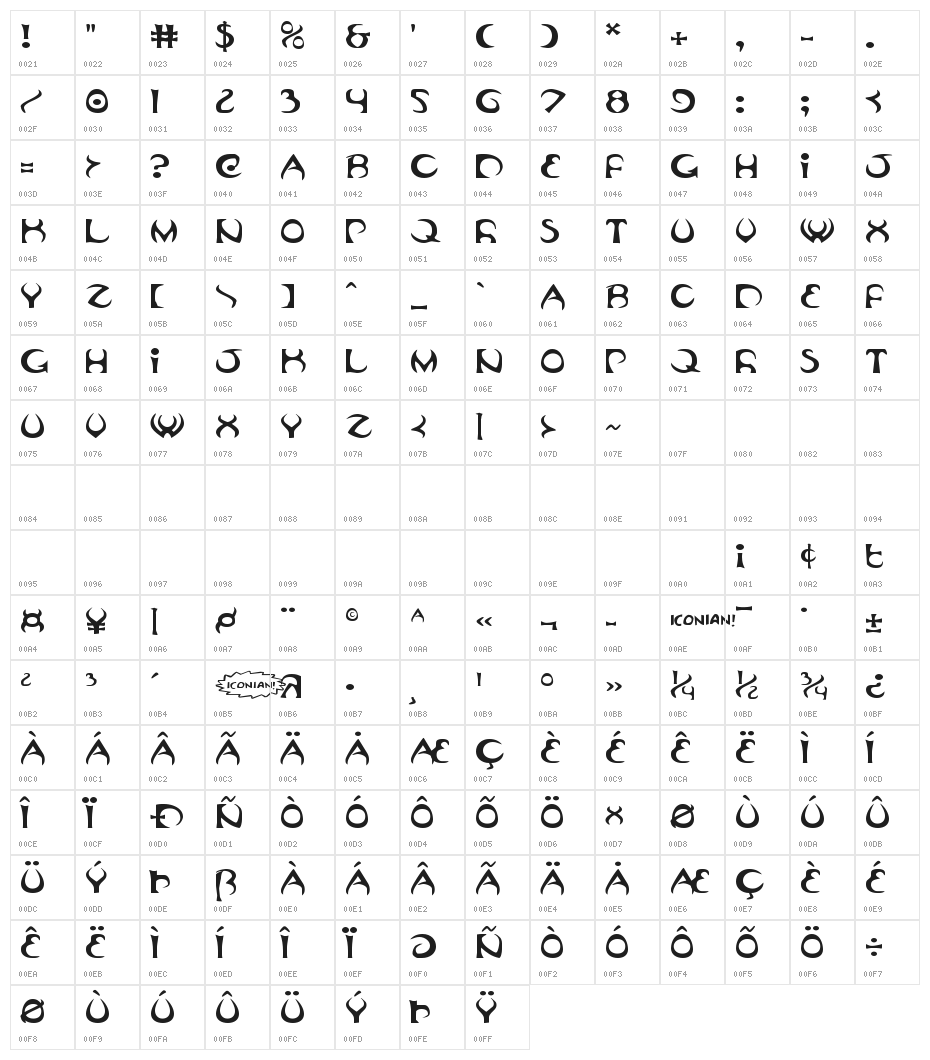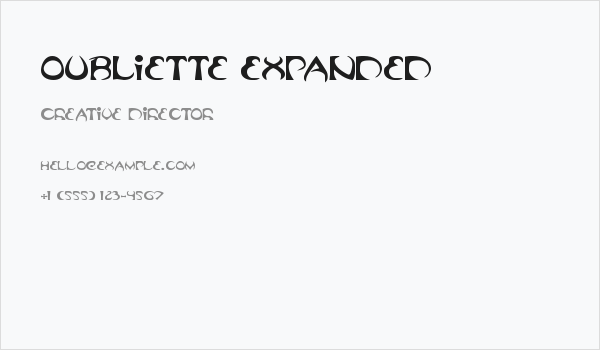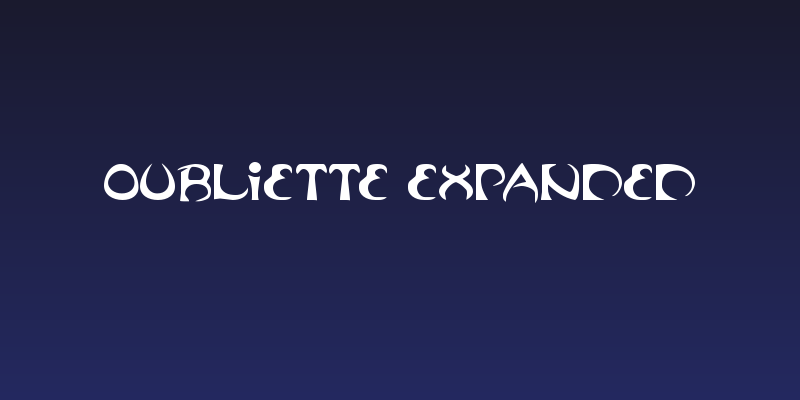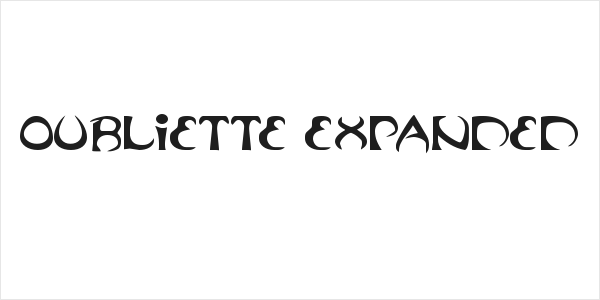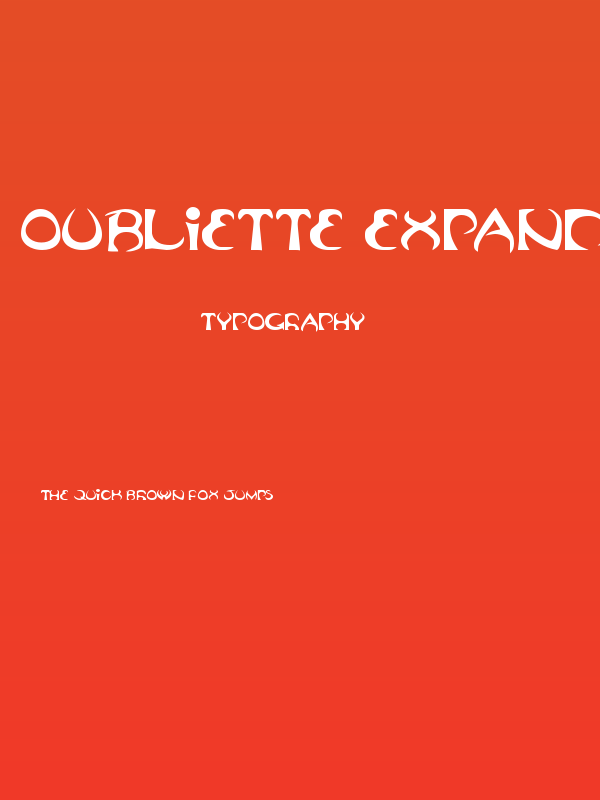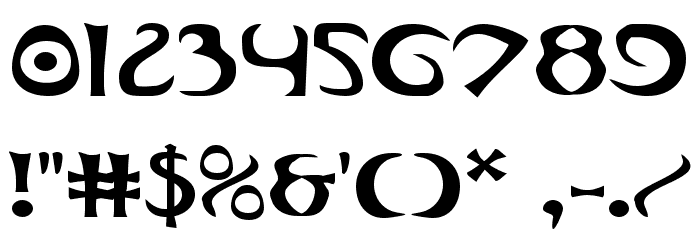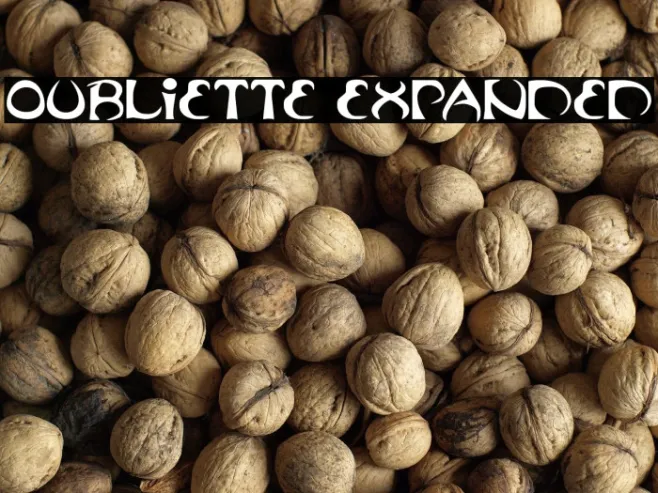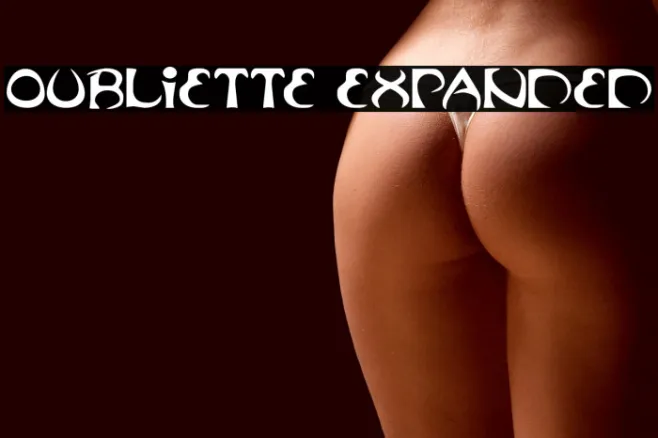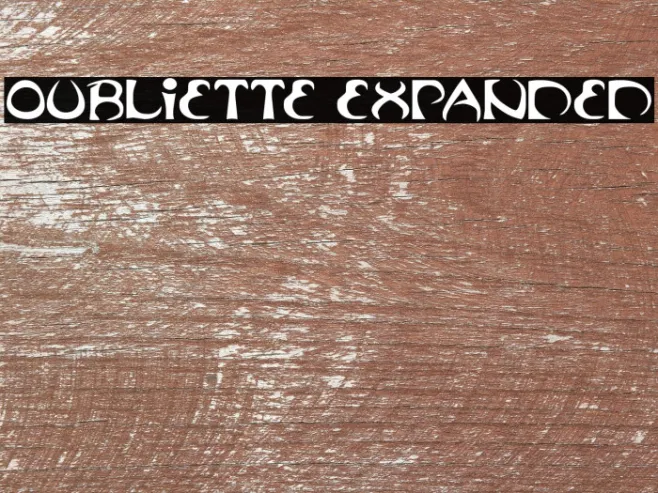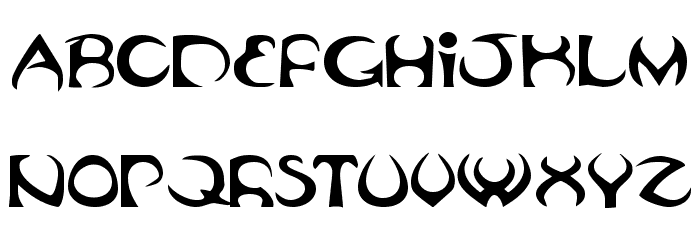
Oubliette Expanded Font
Oubliette Expanded Description
This font features a unique and artistic design with a bold and dramatic flair. The characters exhibit a high contrast between thick and thin strokes, creating a striking visual impact. The letters have an expanded width, giving them a spacious and open appearance. The style is distinctly decorative, with an almost mystical or fantasy-like quality. The curves and angles are sharp and pronounced, adding to the font's distinctive character. This font is well-suited for projects that require a bold statement or a touch of the extraordinary.
| Proposed Projects | Perfect for fantasy-themed posters, book covers, video game titles, and branding that requires a unique and eye-catching typeface. |